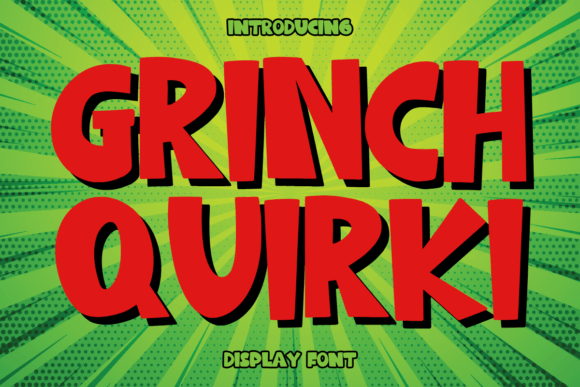
Get Ready to Fall in Love with Grinch Quirki Font
You know that feeling when you’re staring at a blank canvas, waiting for inspiration to strike? The cursor blinks impatiently, and you can’t help but wonder what your next masterpiece will look like. For designers, this moment is a thrill and a challenge all at once. It’s where creativity meets experimentation, and the right font can make all the difference.
That’s where Grinch Quirki Font comes in – a fun and quirky display font that adds a touch of elegance to any project. With its incredibly distinct and timeless style, you’ll be spoiled for choice when it comes to using it for your favorite designs. Whether you’re a seasoned pro or just starting out, Grinch Quirki Font is a valuable addition to your design arsenal.
- Unique Characteristics: Distinctive, whimsical design with bold lines and quirky shapes, inspired by Dr. Seuss’s Grinch character
- Character Set: Supports Latin, Cyrillic, and Greek alphabets, with over 1000 glyphs, including ligatures and ornaments
Grinch Quirki Font Review
Overall, I think the Grinch Quirki Font has a lot of character. The designer has done a great job of capturing the grumpy spirit of the Grinch, and the font’s whimsical feel is sure to bring a smile to users’ faces. ✨
- The font’s bold and playful feel makes it perfect for titles and headings.
- The irregular letterforms add a touch of hand-drawn charm.
- The font’s weight and spacing can be easily adjusted to suit different design contexts.
However, there are a few limitations to consider. The font’s irregularities can sometimes make it difficult to read, particularly at smaller sizes. Additionally, the font’s character set is limited, which may be a concern for designers who need to use it for longer blocks of text. ⚠️
I would recommend the Grinch Quirki Font for designers looking to add a touch of whimsy to their projects. While it may not be suitable for all design contexts, its unique character and playful feel make it a great choice for titles, headings, and other design elements where a bit of personality is needed.
For best results, use the font in combination with bold or italic styles to emphasize text. This will help bring out the quirky and playful nature of the font.
Use the font in bold or italic styles to add emphasis to text, and experiment with layer blending modes to create unique and interesting effects.
Use the font in headings or titles to add a playful and whimsical touch to your presentation or document.
The Grinch Quirki Font is perfect for:
Children’s book covers and illustrations
Playful branding and marketing materials
Whimsical wedding invitations and decorations
Quirky social media graphics and posts